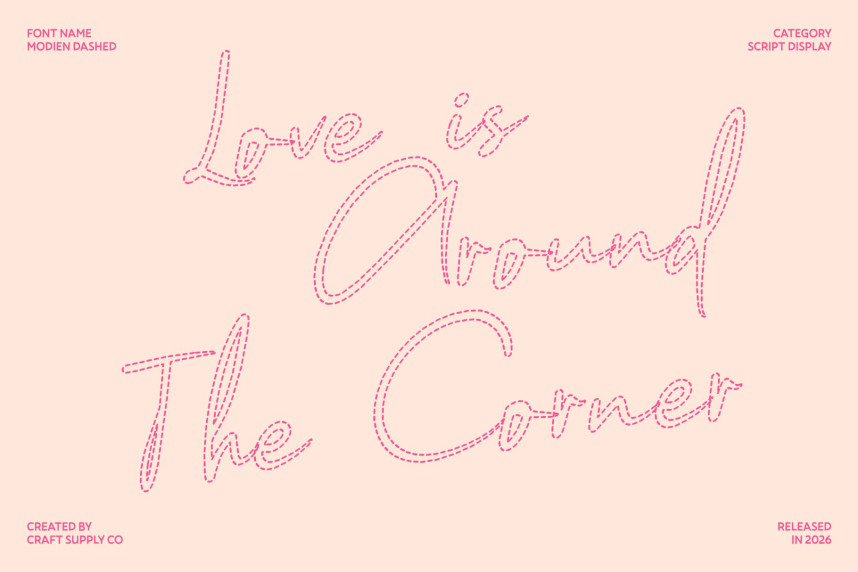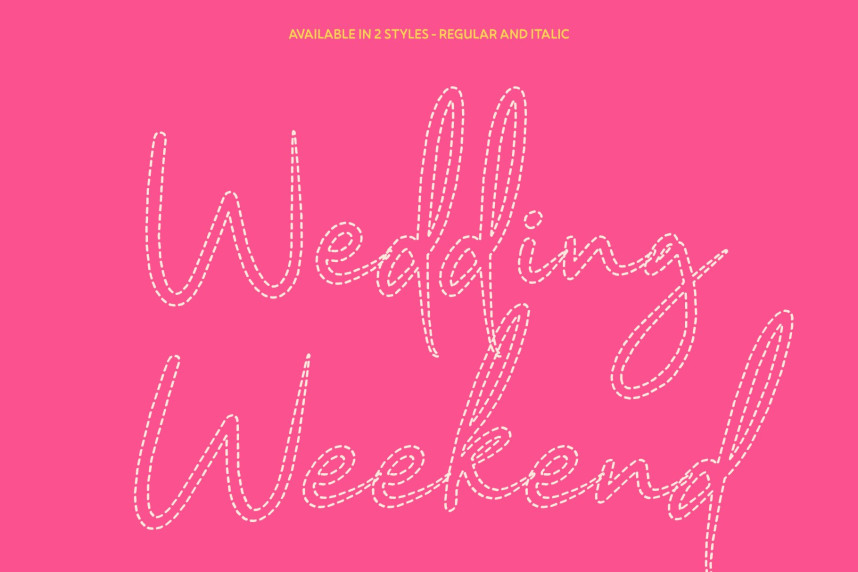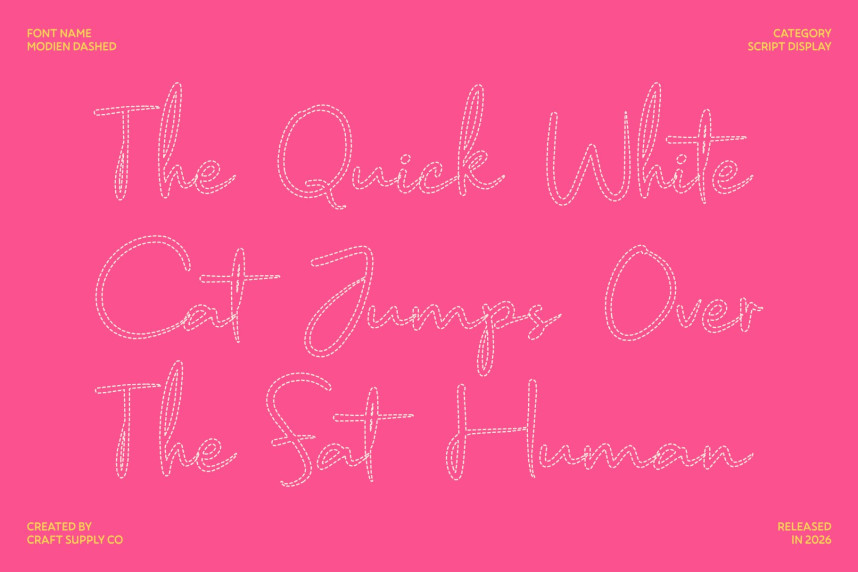
Modien Dashed Font
Modien Dashed Font – Stylish Handwritten Font
Authentic Handwriting with Modern Elegance
This is a stylish handwritten script font inspired by the natural expression of real handwriting. Its smooth strokes and organic flow create a warm, personal feel while maintaining a polished and contemporary appearance, perfect for designs that aim to look chic and sophisticated.